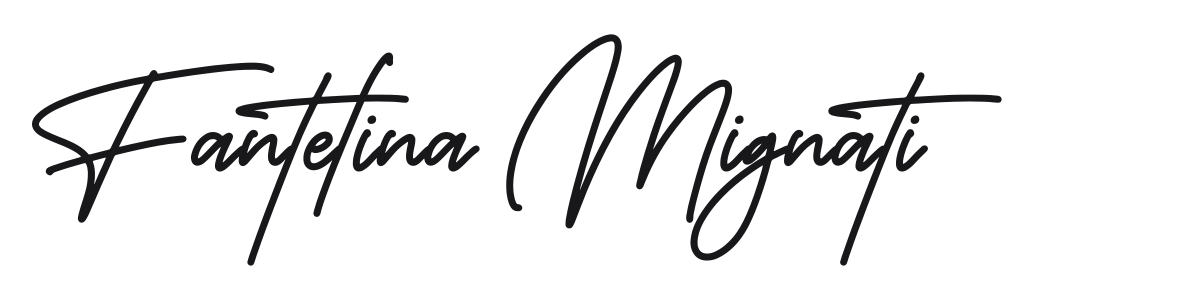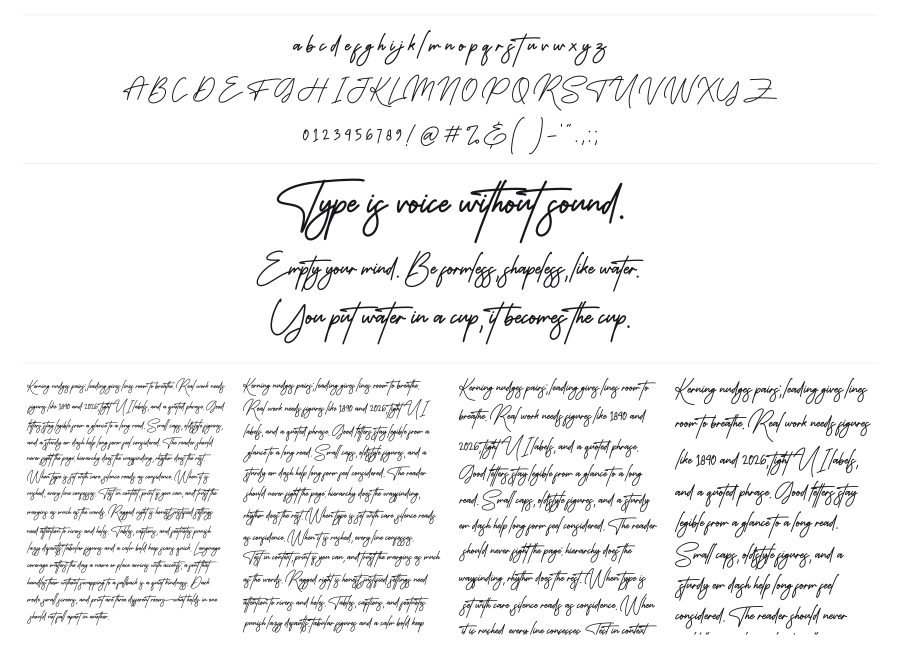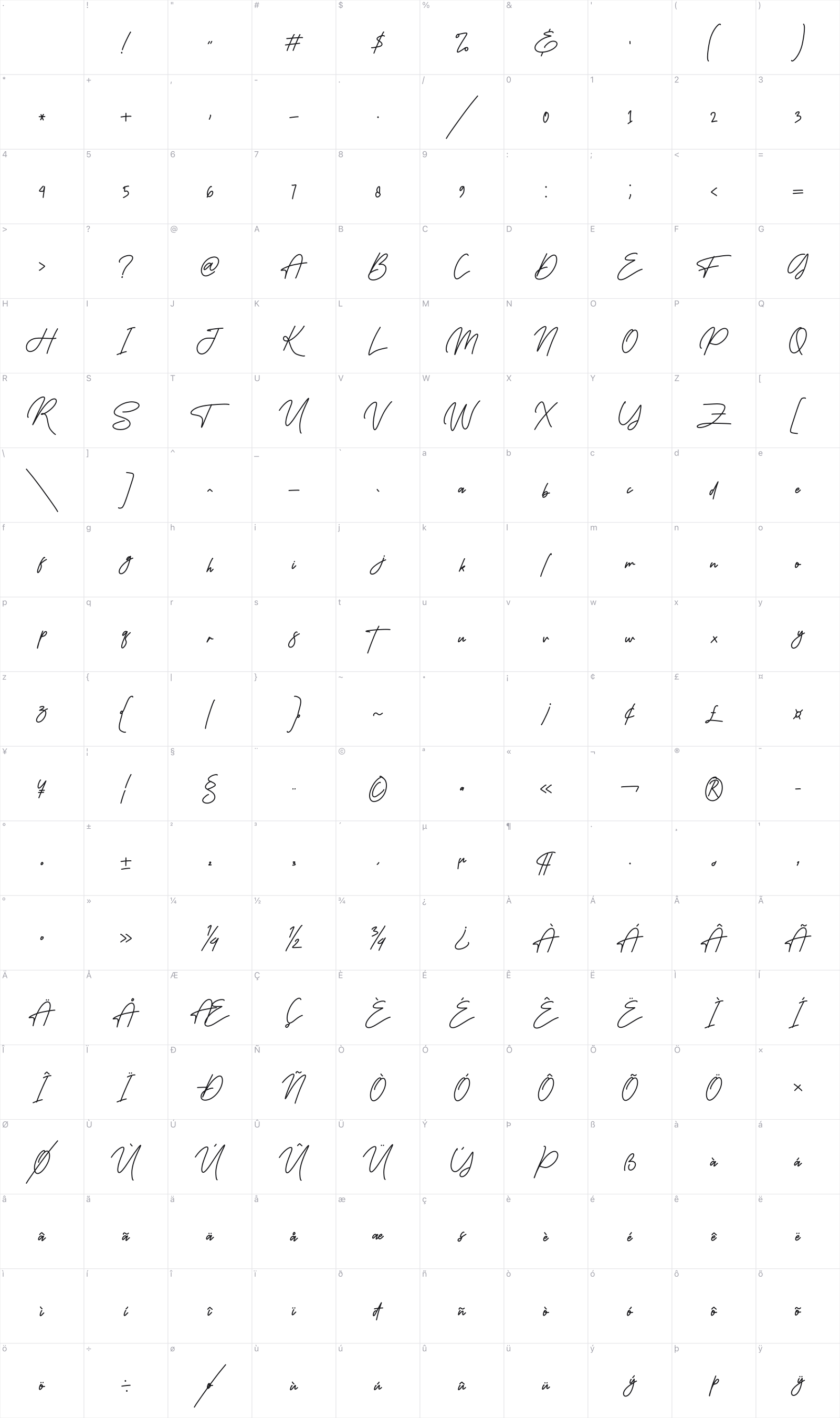
Fantelina Mignati
Fantelina Mignati is a monoline signature script with a loose, handwritten feel that reads as genuinely spontaneous rather than constructed. Letters flow naturally from one to the next with varying rhythm and extended strokes that give it an authentic pen-in-hand quality. It brings warmth and personality to branding, packaging, and editorial contexts where a human touch matters.